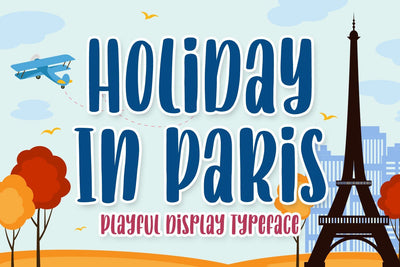
Holiday in Paris Playful Font
Holiday in Paris is a playful and friendly display font. It features a cute and joyful style that will take your designs to the next level!
This font is perfect for many different projects such as logos & branding, invitation, stationery, wedding designs, social media posts, advertisements, product packaging, product designs, label, photography, watermark, special events or anything.